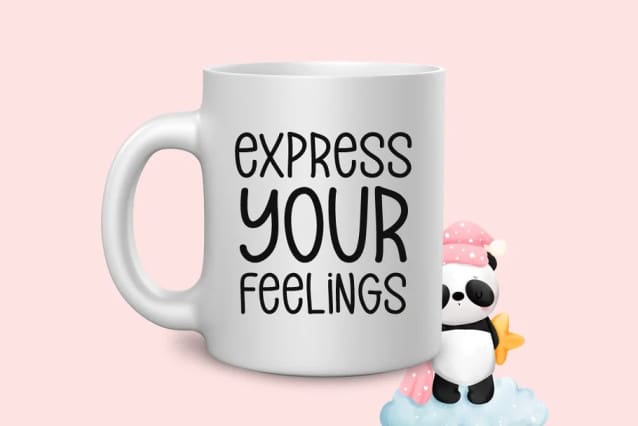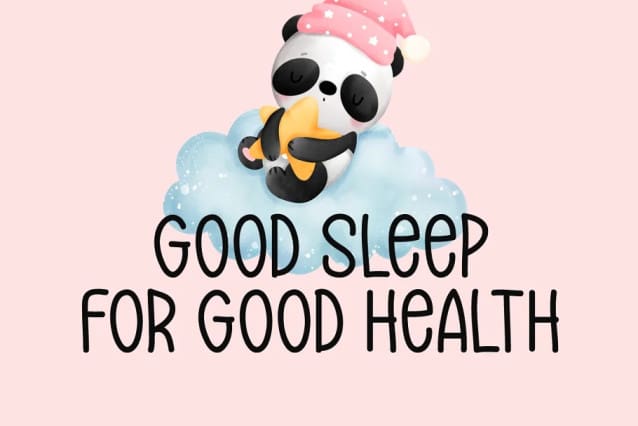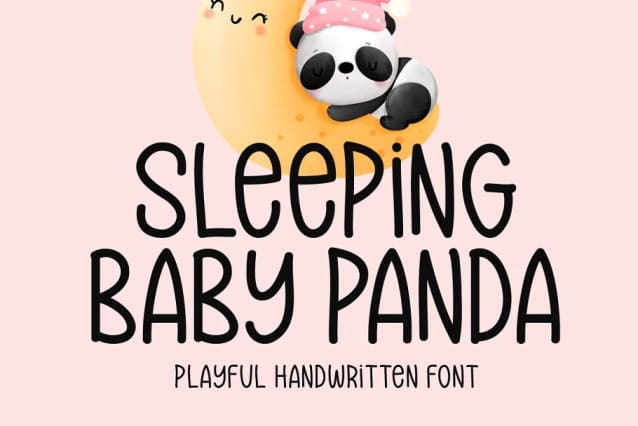
Sleeping Baby Panda Font
Sleeping Baby Panda Font is a unique and playful handwritten font. This font is a great choice for a wide variety of contexts! It looks stunning on thank you cards, quotes, greeting cards, logos, business cards, and every other design which needs a creative spark.